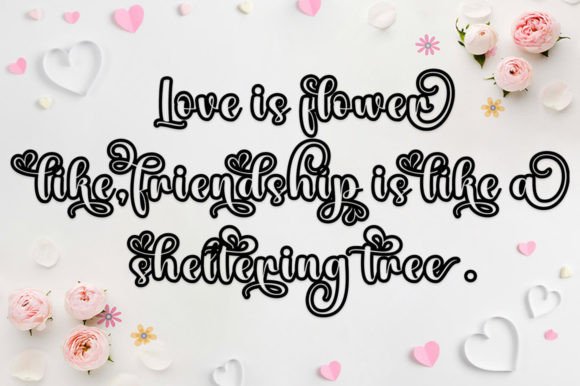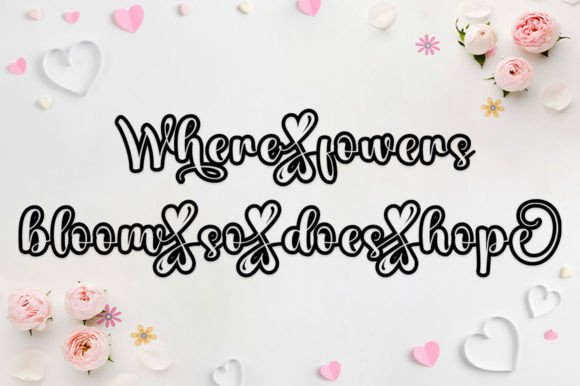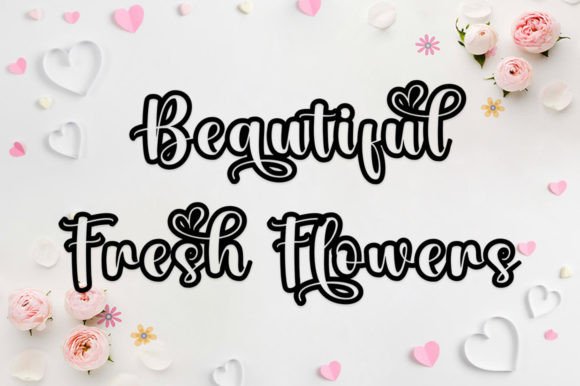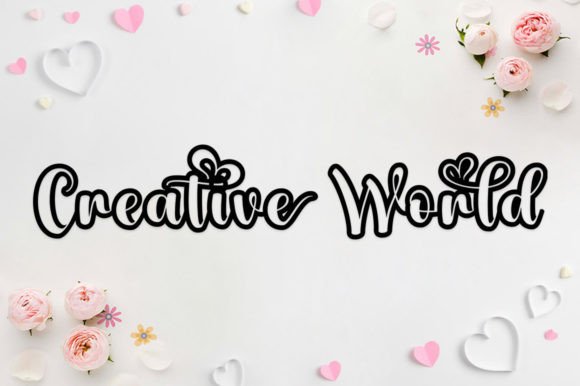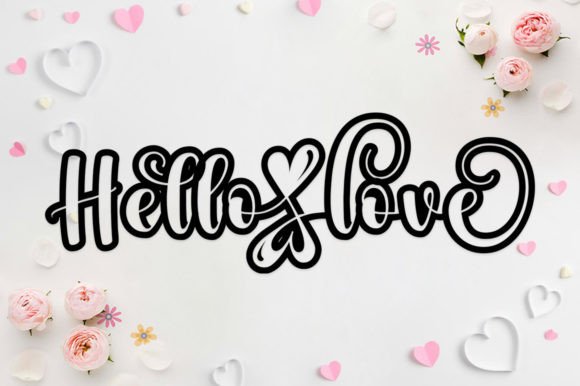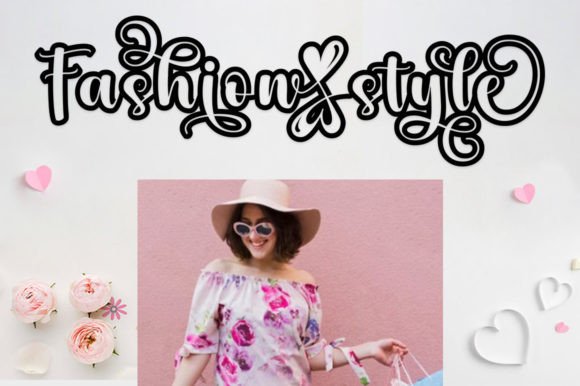
The Quest for the Perfect Font: Discovering Boyka Outline
I’ll never forget the time I was working on a project for a client who wanted a font that was both playful and elegant. I had spent hours scouring the internet for the perfect script font, but nothing seemed quite right. That was until I stumbled upon Boyka Outline. This beautiful font has been a game-changer for me, and I’m excited to share it with you.
A First Impression: What Makes Boyka Outline Special
Boyka Outline is a cute and unique script font that’s versatile and flexible. Its warm, romantic, and jovial personality makes it perfect for turning your project ideas into real works of art. One of the things that sets Boyka Outline apart is its PUA coding, which gives you easy access to all glyphs and swashes. Plus, it comes complete with language support!
What I Love About Boyka Outline
• ✨ Unique and playful script font that’s perfect for creative projects
• ✅ Easy access to glyphs and swashes with PUA coding
• ✅ Complete with language support for a wide range of uses
• ✨ Warm and romantic feel that’s perfect for wedding or event designs
While Boyka Outline is an amazing font, there are a few things to keep in mind. For example, ⚠️ some users may find that the font can be a bit finicky when it comes to kerning. Additionally, 🤔 you may need to experiment with different sizes and styles to get the look just right.
The Story Behind Boyka Outline
While the origins of Boyka Outline are shrouded in mystery, it’s clear that the designer had a passion for creating unique and beautiful fonts. Perhaps the designer was inspired by the whimsical world of art and literature, or maybe they simply wanted to create a font that would bring a smile to people’s faces. Whatever the inspiration, Boyka Outline is a true gem.
Q: What is PUA coding, and how does it benefit the user?
A: PUA (Private Use Area) coding allows designers to access a wide range of glyphs and swashes, making it easier to customize their designs.
Q: Is Boyka Outline suitable for body text?
A: While Boyka Outline is a beautiful font, it’s best suited for headlines and titles. For body text, you may want to choose a font with better legibility.